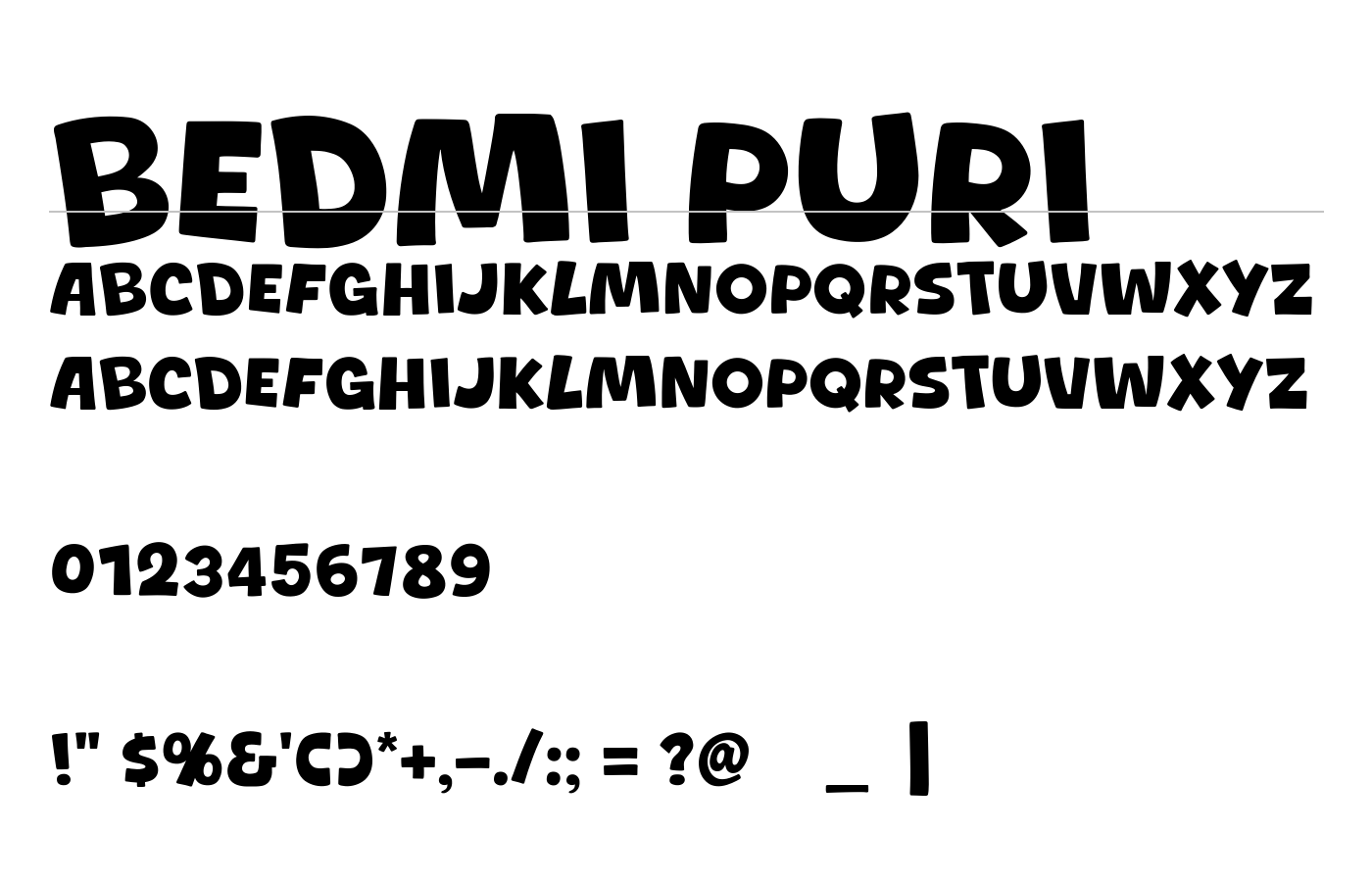
Bedmi Puri is a playful and bold sans serif font featuring chunky, slightly irregular letterforms that give it a friendly and informal vibe. Its thick strokes and wide characters make it ideal for attention-grabbing headlines, logos, and packaging where a fun and approachable personality is desired. This font works well in creative and casual contexts, adding warmth and character to designs aimed at younger or more relaxed audiences.
Bedmi Puri Font
About Bedmi Puri Font